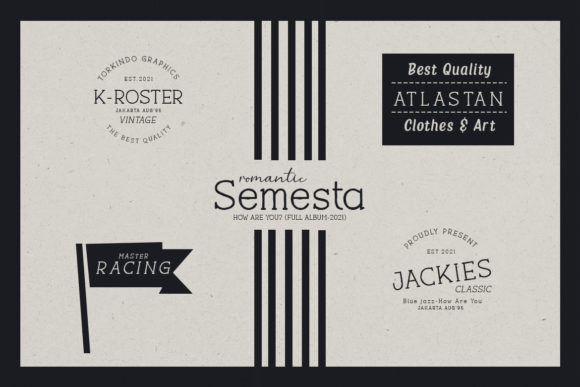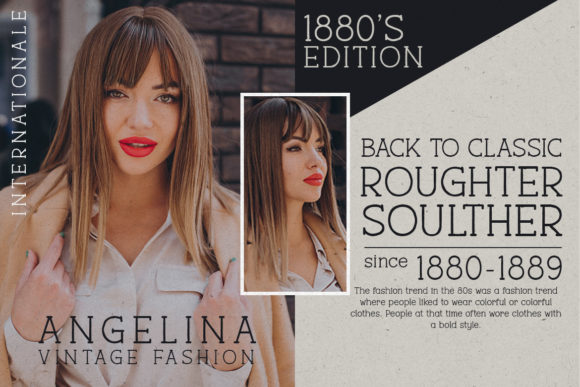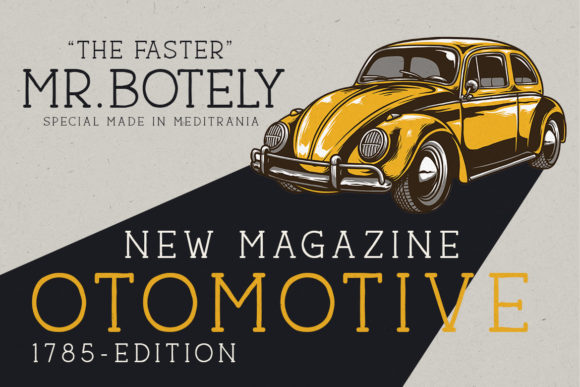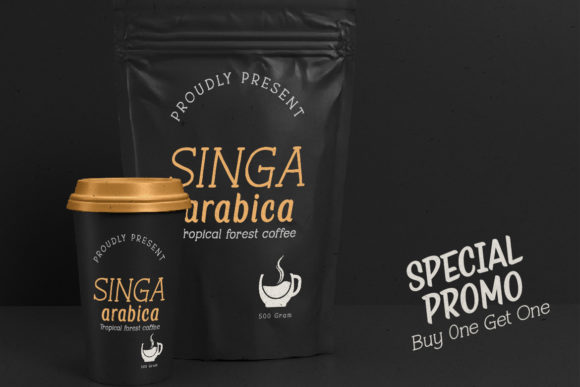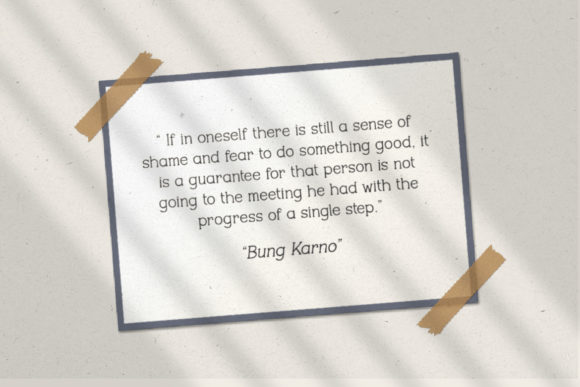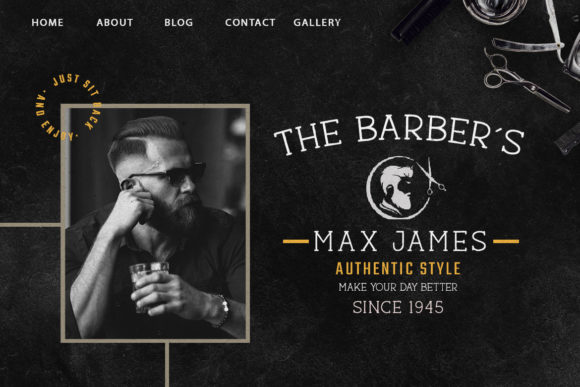
Introducing Captain Fenris: A Vintage-Inspired Serif Font for Creative Designs
Are you on the hunt for a font that exudes a sense of nostalgia and casual charm? Look no further than Captain Fenris, a custom-made serif font designed to elevate your text typography, logotypes, marketing graphics, and more. With its unique blend of vintage and laid-back personality, Captain Fenris is the perfect addition to any design project.
The Characteristics of Captain Fenris
Captain Fenris is a carefully crafted serif font that boasts a distinctive, old-world charm. Its vintage inspiration is evident in its elegant letterforms, which feature subtle imperfections and a dash of character. The font’s casual personality shines through in its relaxed, approachable feel, making it ideal for designs that require a friendly, down-to-earth tone.
What Makes Captain Fenris So Versatile?
One of the standout features of Captain Fenris is its incredible versatility. This font can be used across a wide range of design applications, including:
- Text typography: Captain Fenris is optimized for body text, making it perfect for long-form content, articles, and blog posts.
- Logotypes: The font’s unique character makes it an excellent choice for logos, branding, and identity design.
- Marketing graphics: From social media graphics to flyers and brochures, Captain Fenris is the perfect font for marketing materials.
- Display design: Use Captain Fenris to create eye-catching headlines, titles, and captions for your display designs.
- Branding: Establish a strong brand identity with Captain Fenris, which can be used across various platforms, from business cards to website headers.
- Package design: Add a touch of elegance and sophistication to your packaging designs with Captain Fenris.
- Advertisement design: Create compelling ad copy with Captain Fenris, which is sure to grab attention and leave a lasting impression.
Why Choose Captain Fenris?
With so many fonts available, why should you choose Captain Fenris? Here are just a few compelling reasons:
- Unique character: Captain Fenris has a distinct personality that sets it apart from other fonts.
- High-quality design: The font is meticulously crafted to ensure excellent legibility and aesthetics.
- Flexibility: Use Captain Fenris across various design applications, from digital to print.
- Ease of use: The font is easy to read and works well in a variety of contexts.
Tips for Using Captain Fenris Effectively
To get the most out of Captain Fenris, here are some expert tips:
- Experiment with font sizes: Captain Fenris works well at various font sizes, from small body text to large display headings.
- Play with line spacing: Adjust the line spacing to create a sense of rhythm and flow in your text.
- Combine with other fonts: Pair Captain Fenris with other fonts to create visual interest and contrast.
- Pay attention to color: Choose colors that complement the font and enhance the overall design.
| Author | Keristyper |
Captain Fenris is a one-of-a-kind serif font that brings a touch of vintage charm and casual personality to any design project. With its versatility, high-quality design, and ease of use, it’s an excellent choice for designers and crafters looking to elevate their typography and branding. Whether you’re working on a logo, marketing materials, or display design, Captain Fenris is sure to make a lasting impression.